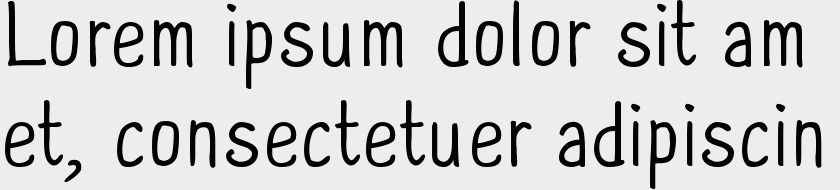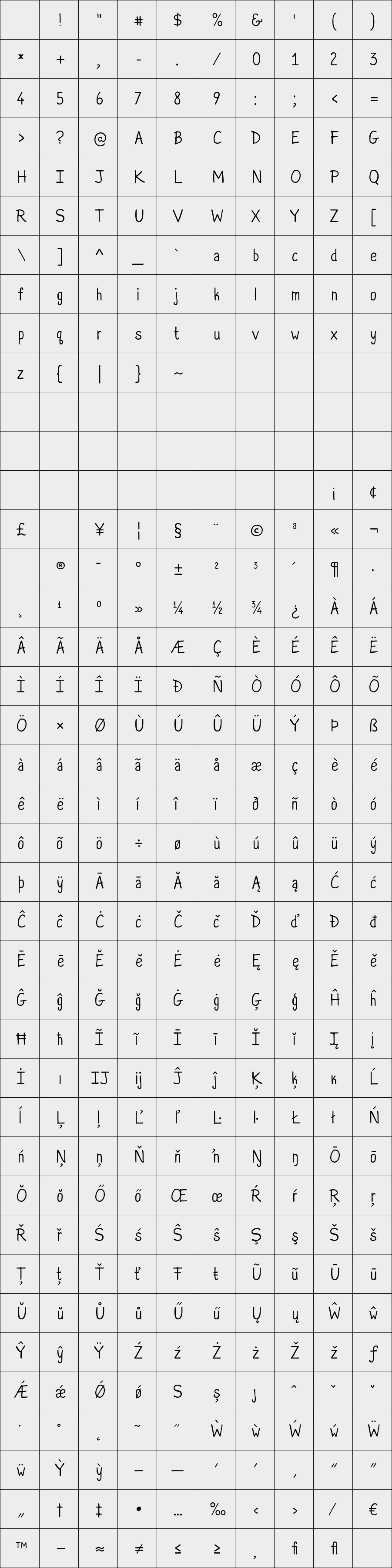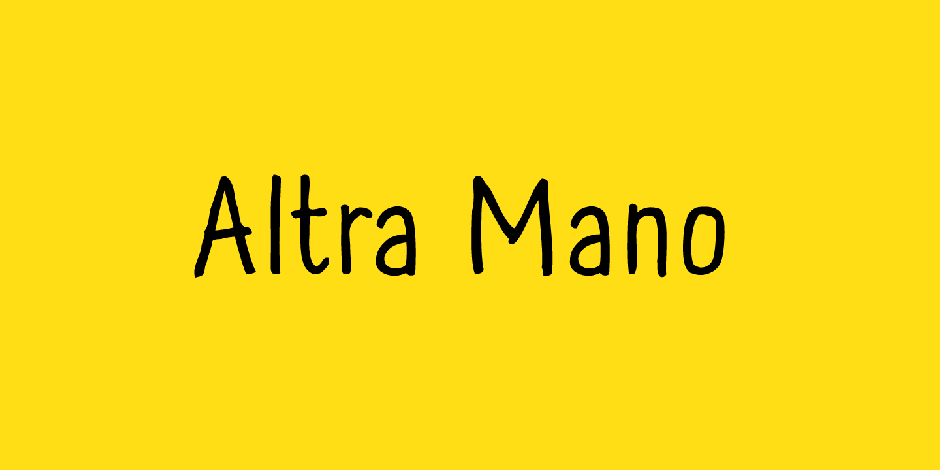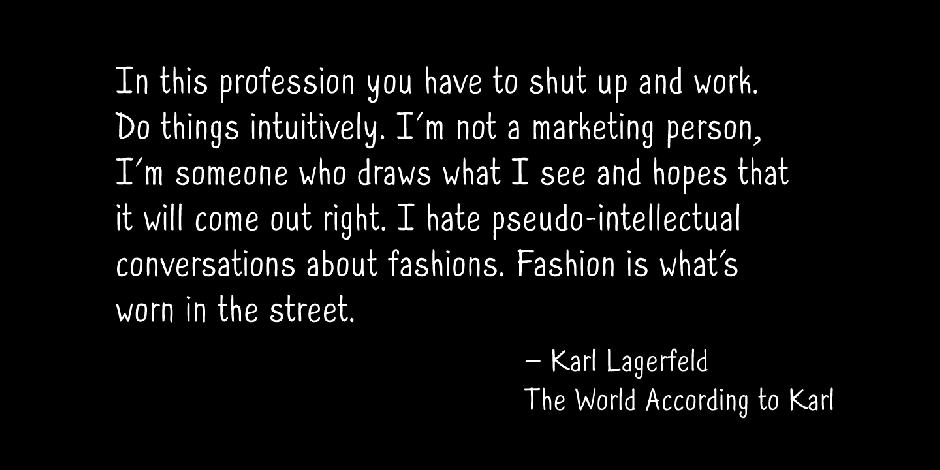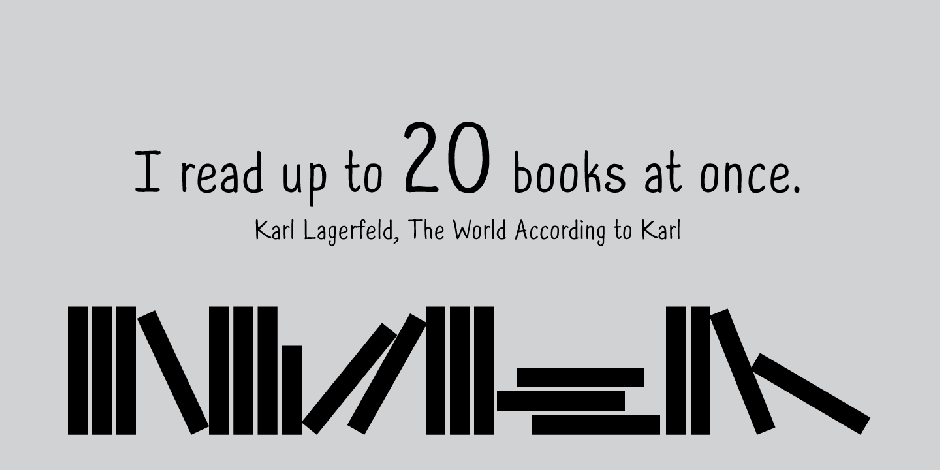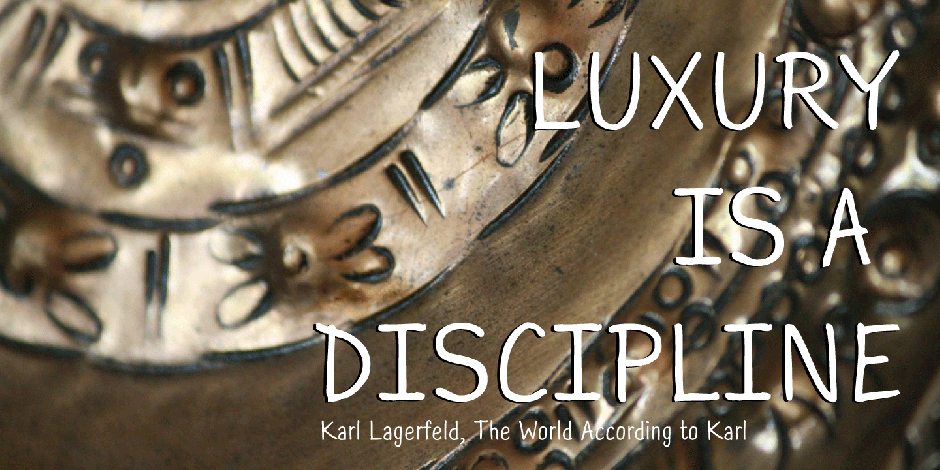
Altra Mano
Altra Mano is based on the designer’s second style of handwriting, one that is more refined and controlled. Altra Mano is a decorative display typeface ideal for headlines, logotypes, magazines, posters and short text.